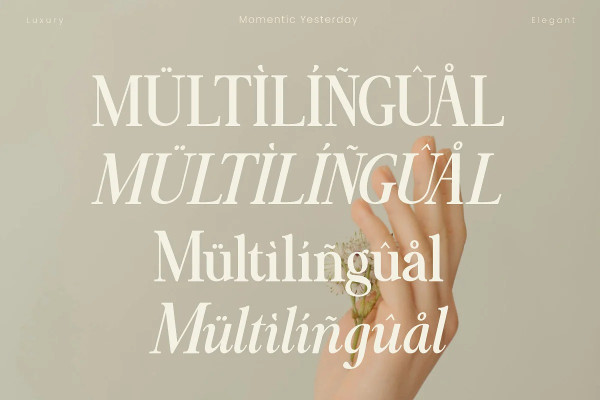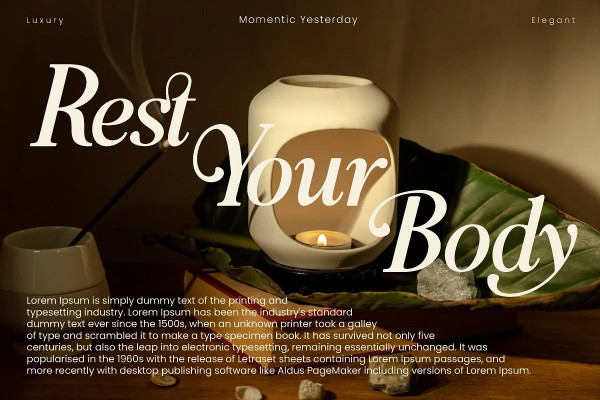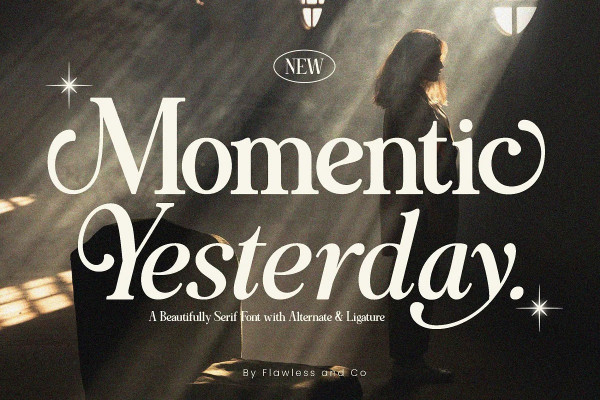
Momentic Yesterday Font
Momentic Yesterday Font Duo, with italic Modern Font, our new MomenticYesterday Font Duo, Modern Font with Elegant Style is perfect for branding, logos, invitation, master heads, and more.